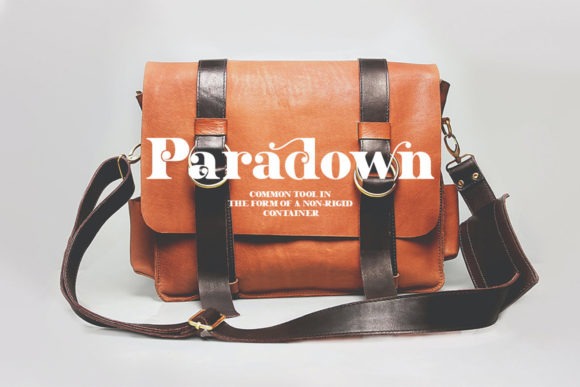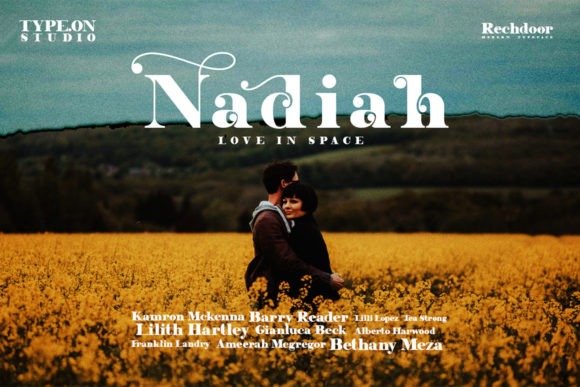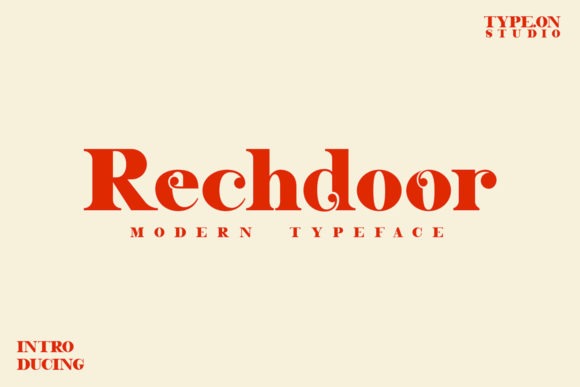
Rechdoor Serif Font
This is an elegant ligature serif typeface manufactured by type.on.studio. Its soft curves and high contrast glyphs, give it a feminine and masculine quality. This font is PUA encoded which means you can access all glyphs and swashes with ease! Add it confidently to your favorite creations and let yourself be amazed by the outcome generated.